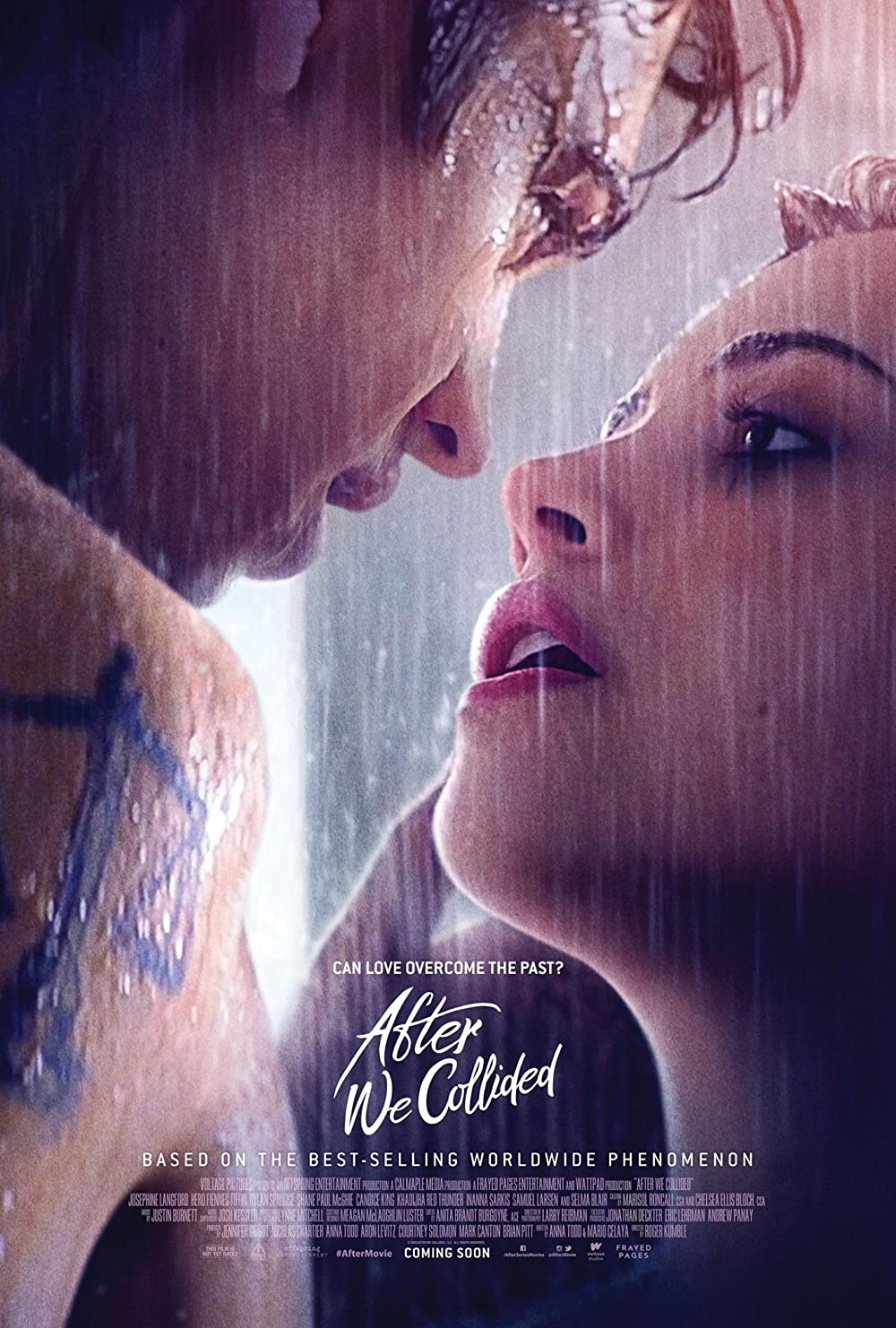
After We Collided Font
DramaAfter We Collided is a 2020 American romantic drama film based on the 2014 novel of the same name by Anna Todd. It is the sequel to the 2019 film After and follows the tumultuous relationship of Tessa and Hardin as they navigate their issues.
The title of the film After We Collided uses the brush script font Kick Hornet by Dirtyline Studio. The book cover for the novel is based on a condensed sans serif similar to Alternate Gothic.